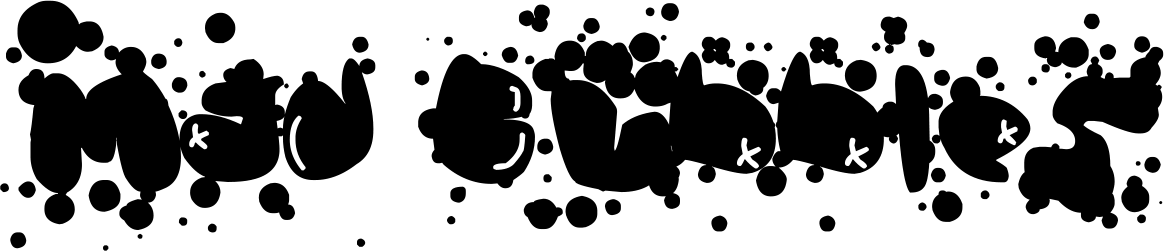
Mad Bubbles Font
Spraypaint fonts have been a permanent and popular choice for graffiti designs and Mad Bubbles is the same. It gives an edgy, cool, messy, and playful feeling to the reader.
You can use it for graffiti, T-shirt designs, event posters, playground titles, product names, and children’s books. You should keep in mind that this fat graffiti font is a bit hard to read.